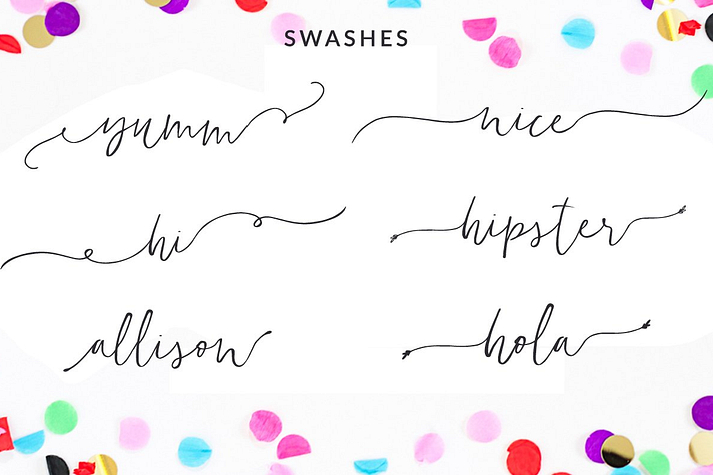
Flatlands
Flatlands is a hand display, modern calligraphy and dingbat font family. This typeface has three styles and was published by Angie Makes.
Meet Flatland, a bouncy, whimsical script with a shifting baseline and a modern calligraphy vibe. Flatland features 3 handcrafted fonts that go swimmingly together.
• Flatland Regular
• Flatland Alternate Caps
• Flatland Extras
This font would be perfect for use in branding, invitations, signage, wedding branding, print, on tangible goods, and so much more.
International support for most Western European languages is also included.